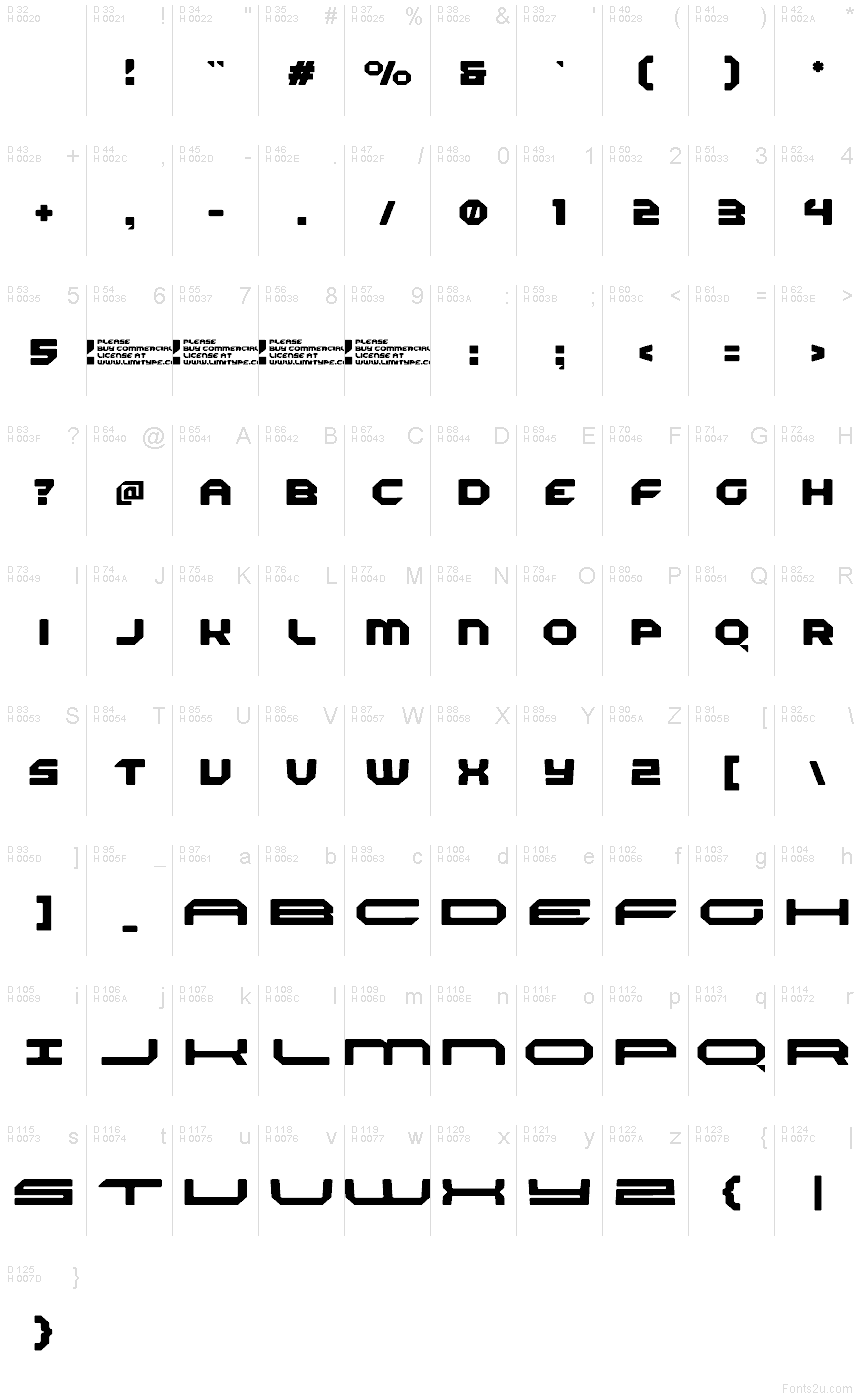
Alphatron Demo Display
Alphatron font is a display typeface designed by Limitype that takes inspiration from techno styles. The expanded font features a geometric and retro-futuristic approach for an extremely unique look. Its modern design is enriched with a distinctive and technological feel making it perfect for traditional print mediums as well as digital platforms.